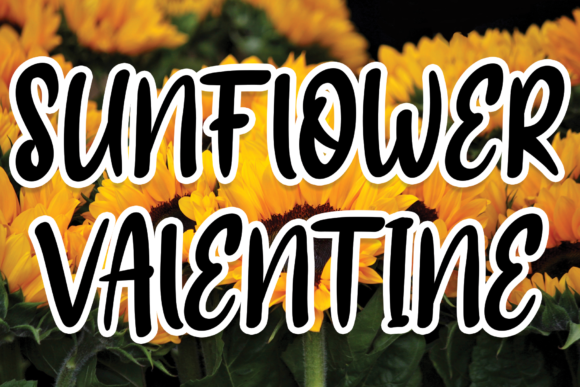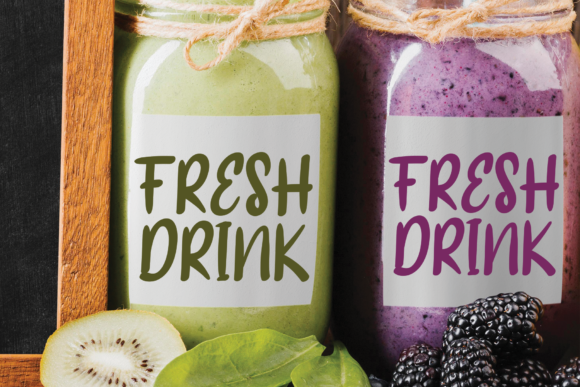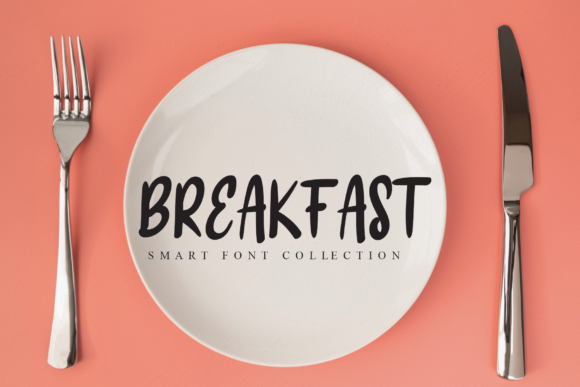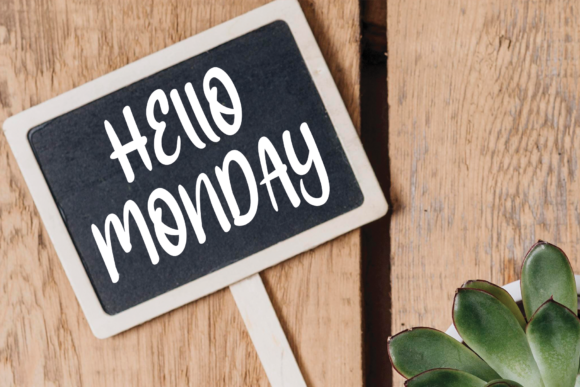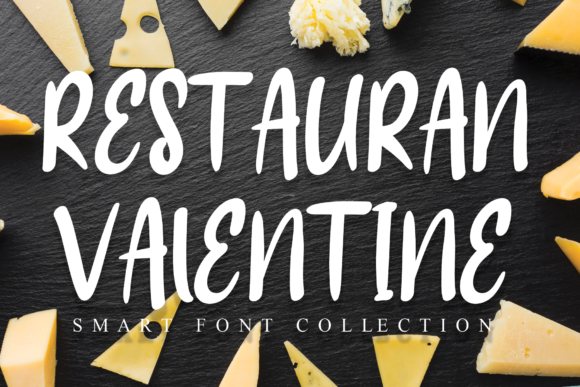
Sunflower Valentine Font
About Sunflower Valentine Font
Sunflower Valentine is a trendy and cool handwritten font that brings a fresh and modern touch to any design project. With its unique style and trendy appeal, this font is a perfect choice for posters, flyers, prints, and more.
In posters, Sunflower Valentine exudes a sense of contemporary chicness. Its cool handwritten look adds a touch of authenticity and originality to the design, making it stand out and catch the eye of passersby.
For flyers, Sunflower Valentine creates a stylish and eye-catching impression. Its trendiness and modern vibe make the flyer look current and appealing, enticing potential readers to take a closer look.
In prints, Sunflower Valentine adds a touch of hipness and fashion. Its cool and trendy elements infuse the print with a sense of modernity and style, making it perfect for various creative and artistic projects.
The endless possibilities of Sunflower Valentine allow designers to explore various design concepts and themes. From edgy and urban designs to more sophisticated and elegant creations, this font adapts effortlessly, making it a versatile and valuable addition to any designer’s toolbox.
Overall, Sunflower Valentine is a cool and trendy handwritten font that brings a fresh and modern feel to any design. Its unique appeal and versatility make it an excellent choice for posters, flyers, prints, and beyond. Embrace the creative possibilities of Sunflower Valentine and let it elevate your designs to new heights.